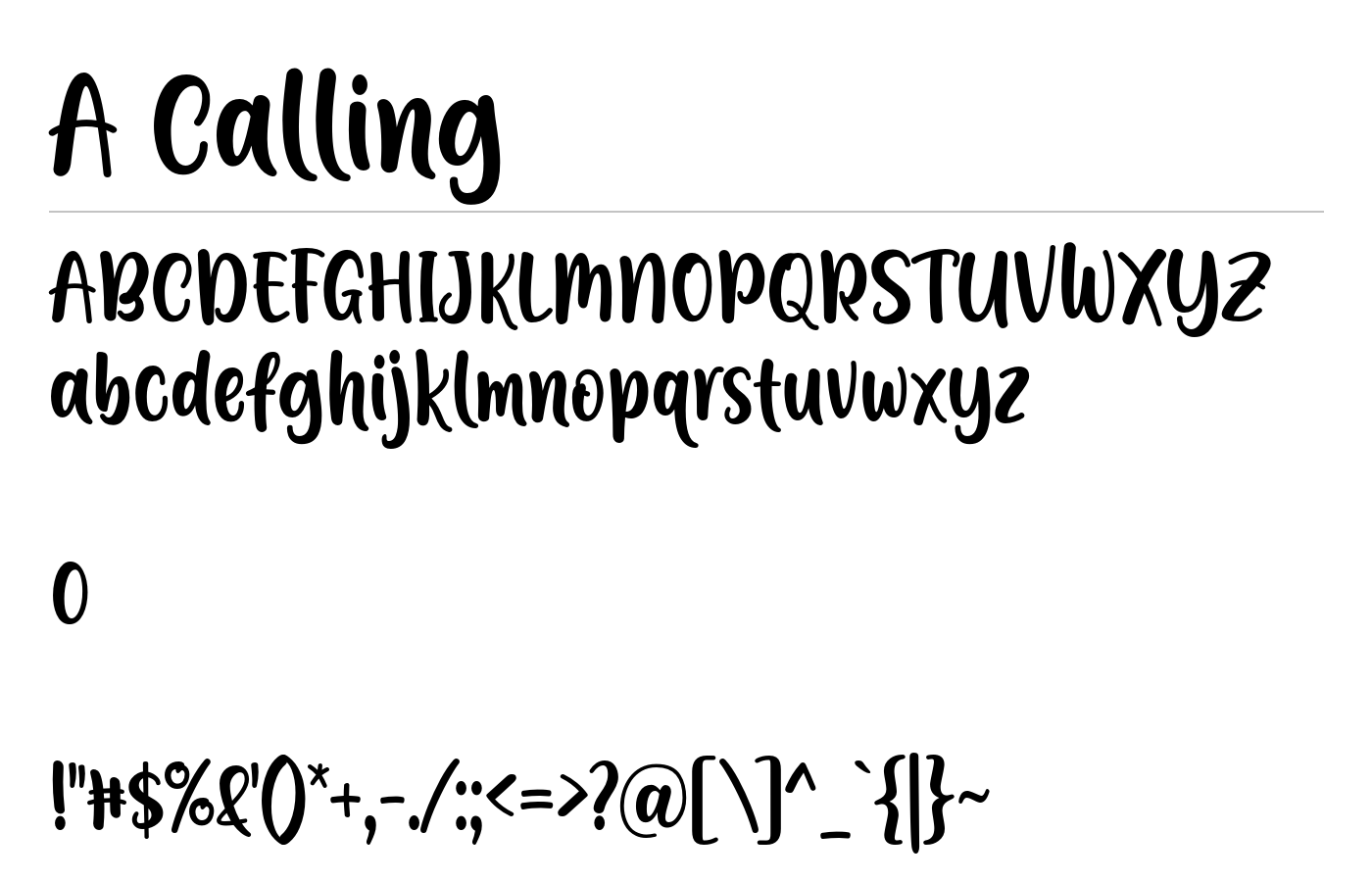
A Calling Font is a playful and friendly handwritten typeface with a casual, organic feel. Its rounded, slightly irregular letterforms and consistent medium weight make it ideal for designs that want to convey warmth and approachability, such as invitations, branding for creative or family-focused projects, and informal headlines. This font’s lively personality suits contexts where a personal, human touch is desired without sacrificing readability.
A Calling Font
About A Calling Font
| Font family | A Calling Font |
| Designer | Rifki; Situjuh Nazara |